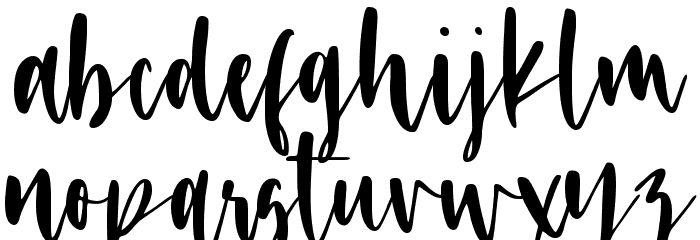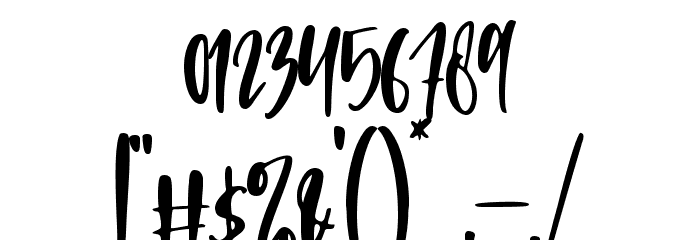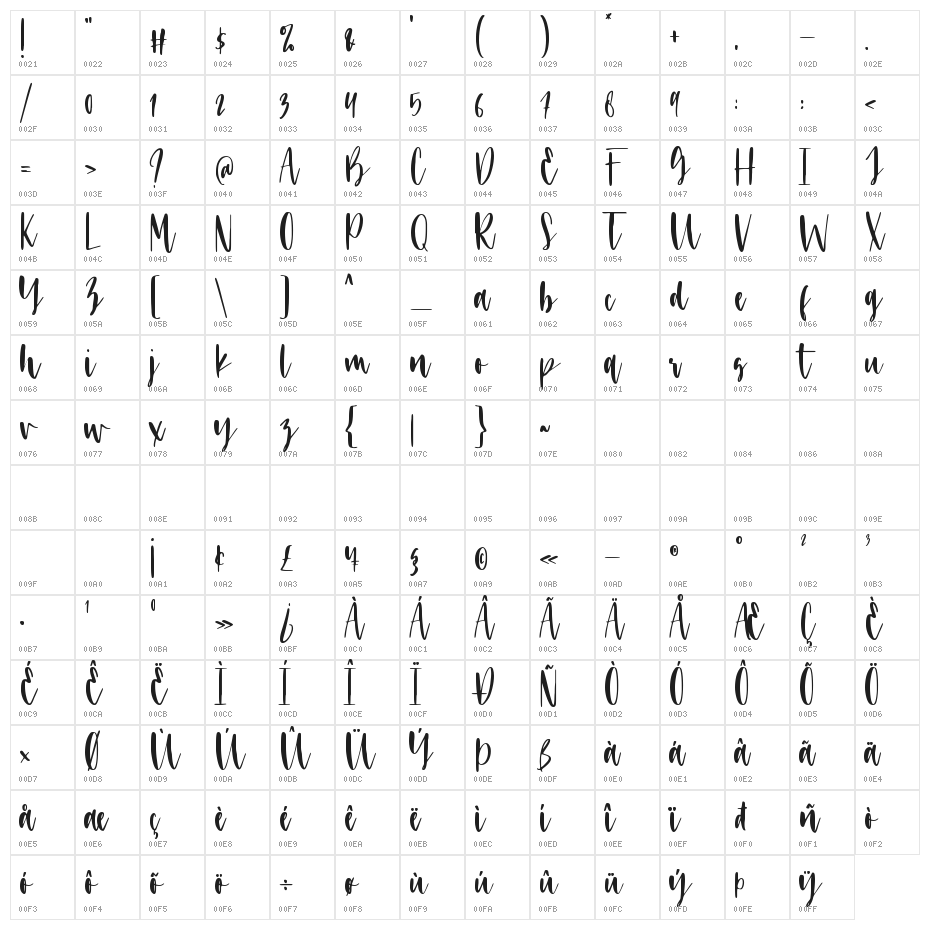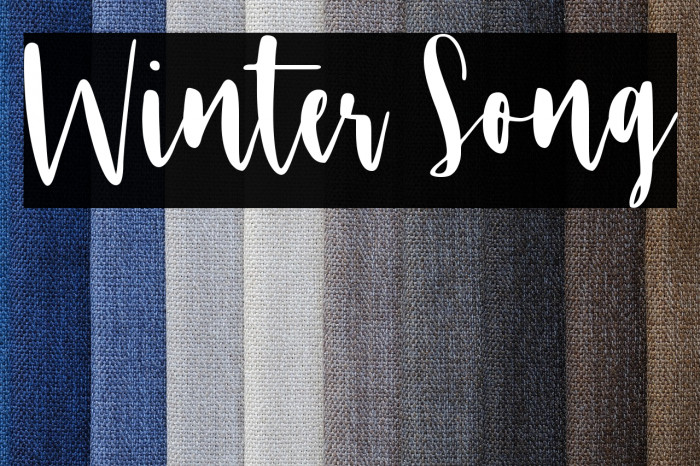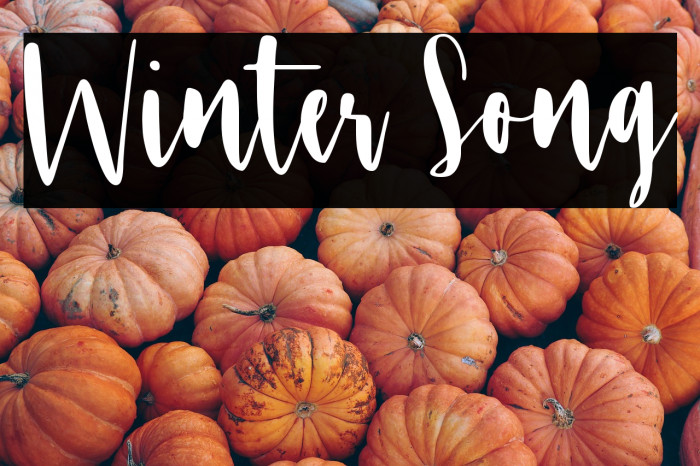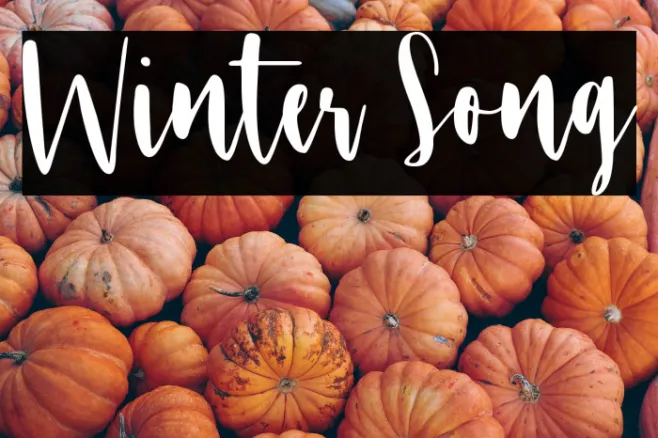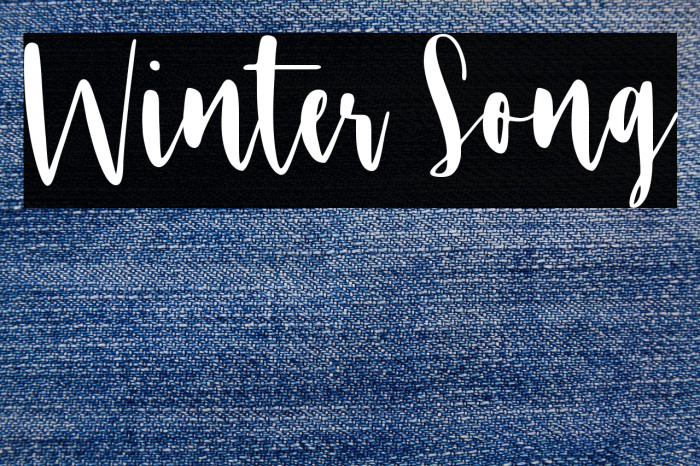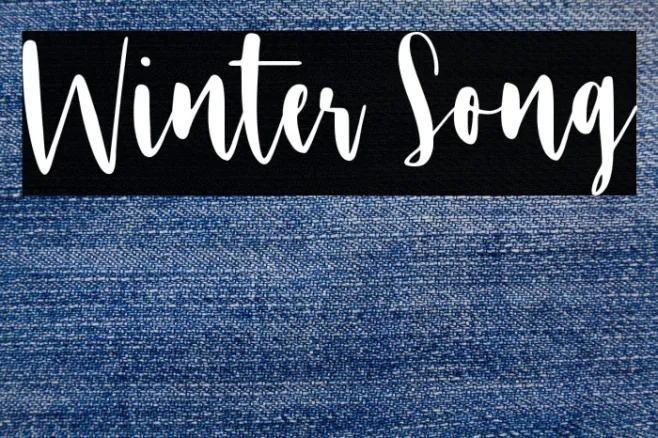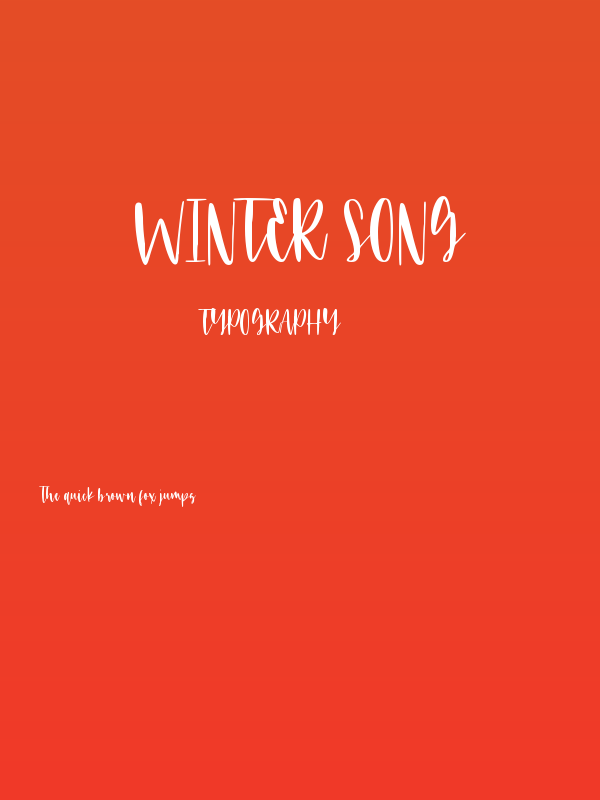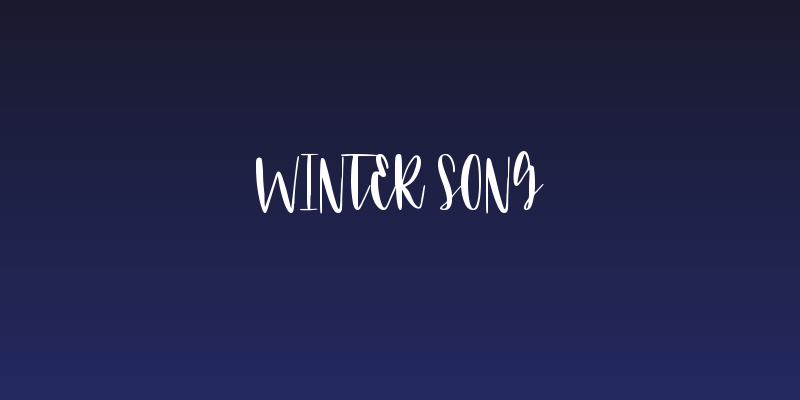
Winter Song Font
This font features a lively and expressive handwritten style, characterized by its fluid and dynamic strokes. The letters are crafted with a sense of movement and energy, giving them a playful yet elegant appearance. The uppercase and lowercase letters maintain a consistent flow, with some letters extending slightly above or below the baseline, adding to its whimsical charm. The numbers and special characters are designed to complement the alphabet, ensuring a cohesive look across all characters. This font's bold and confident strokes make it stand out, while its script-like quality adds a touch of sophistication.
A lively, expressive handwritten font with fluid, dynamic strokes.
- Font: Winter Song
- Proposed Projects: Ideal for wedding invitations, greeting cards, branding projects, and social media graphics.
- Category: Handwritten
- Use Case: Logos, Headlines, Invitations